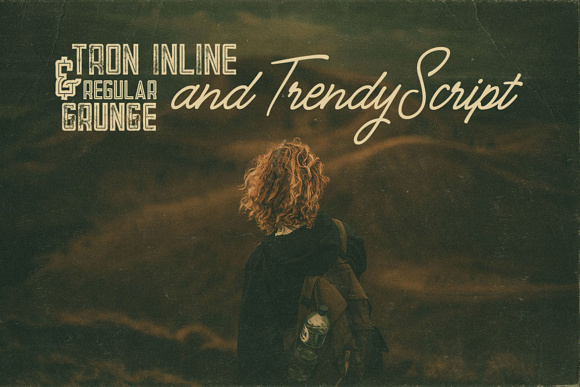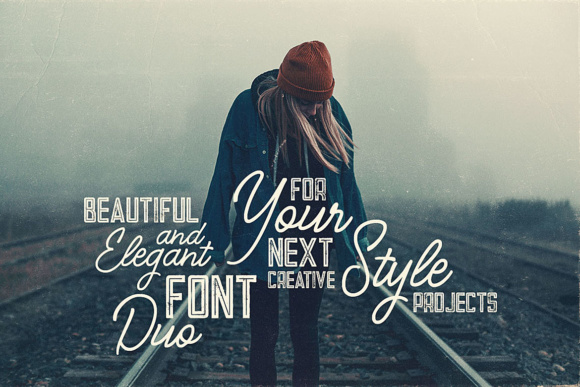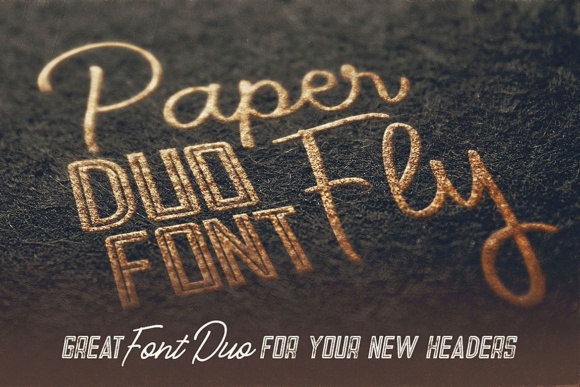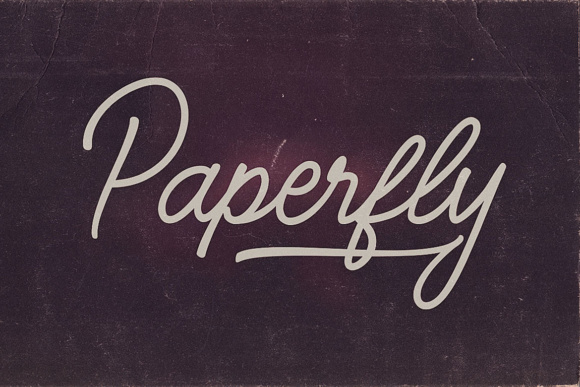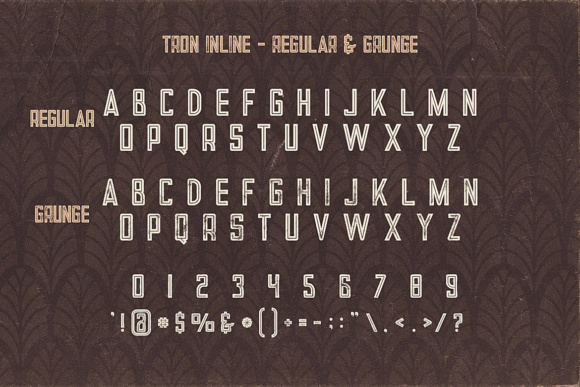
Introduction to Paperfly Font
Imagine you’re brainstorming a creative project, pouring over design concepts and trying to find the perfect font to make it pop. You scroll through design resources, searching for that one font that will elevate your work to the next level. And then, you stumble upon it – the Paperfly Font.
This beautiful monoline font is a game-changer for designers. Its high-quality design makes it perfect for use as a title or headline font, and the fact that it comes as a duo font, paired with an inline that complements it perfectly, is the icing on the cake.
Key Features of Paperfly Font
- High-quality design resource with a unique, elegant style suitable for creative projects
- Perfect for use in creative projects, such as logos, branding materials, and digital art, due to its elegant and sophisticated design
Honest Review: Paperfly Font
I recently came across the Paperfly Font, and I was excited to try it out for my next design project. As a designer, I’m always on the lookout for high-quality design resources that can elevate my work.
One of the things that I love about the Paperfly Font is its unique and creative style. The font is perfect for any project that requires a touch of whimsy and playfulness. The transparent background makes it easy to work with and allows for seamless integration with other design elements. ✨
- Unique and creative style
- The font may not be suitable for formal or professional projects
- The design may not be to everyone’s taste
Overall, I’m really impressed with the Paperfly Font. It’s a great addition to any designer’s toolkit, and I would definitely recommend it to anyone looking for a high-quality, free design resource. ⚠️ Just be aware of the limitations mentioned above, and use it wisely.
Tips for Getting the Most Out of Paperfly Font
Use the Paperfly Font on a transparent background to create a modern and minimalist design. You can also experiment with different font sizes and colors to add depth and visual interest to your creative project.
The Paperfly Font is perfect for creating invitations, social media graphics, and branding materials. Its high-quality design and transparent background make it an ideal choice for designers and non-designers alike. You can download the Paperfly Font for free and start using it in your next creative project.